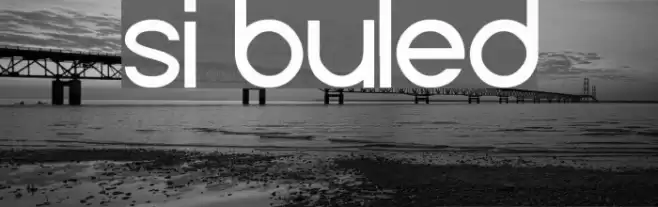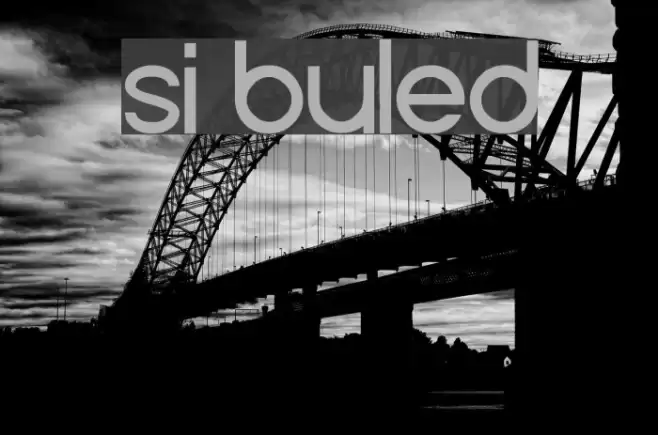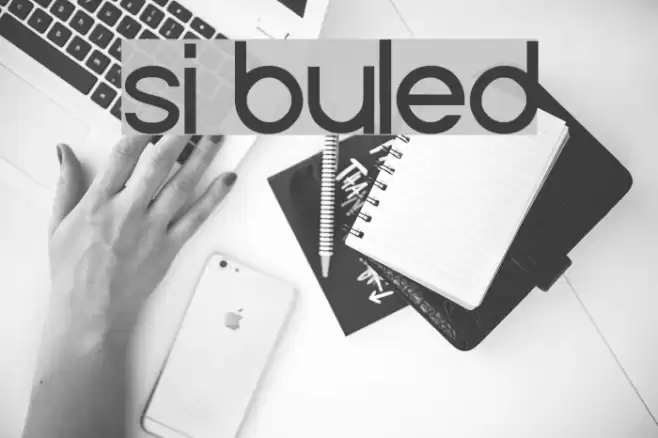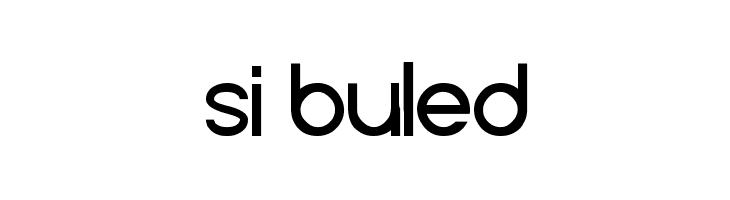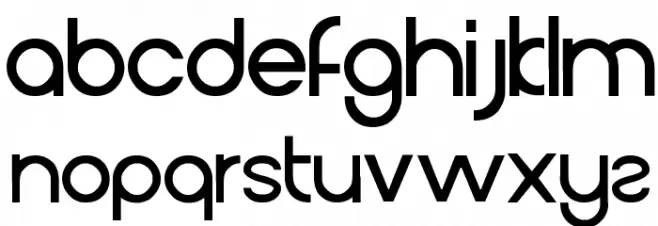
Si Buled
This font features a modern, geometric sans-serif style with clean lines and a uniform stroke width. The characters are rounded, giving a friendly and approachable appearance. The design is minimalistic, focusing on simplicity and clarity, making it highly legible. The consistent weight across all characters ensures a balanced look, while the rounded terminals add a touch of softness. This font is versatile, suitable for both digital and print media, and can be used effectively in various design contexts.
A modern, geometric sans-serif font with rounded characters and uniform stroke width.
- Proposed Projects: Ideal for branding, web design, advertising, and editorial projects where a clean and modern aesthetic is desired.